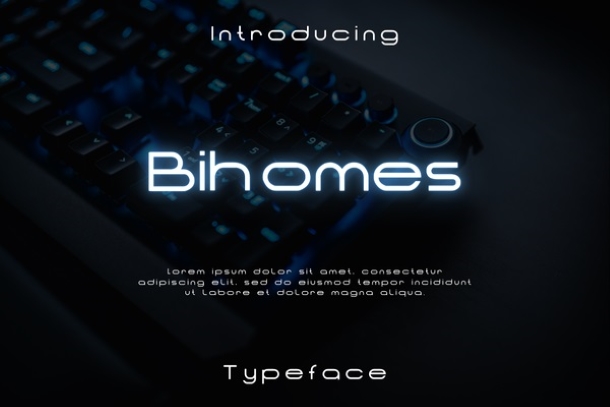
Bihomes Font
Bihomes is a neat and sci-fi look alike display font. In particular, it is perfect for the web, business cards and almost all other projects that need this non-standard look. In the free version they are given all the capital and small letters and a couple of symbols as well.
Bihomes Display Font